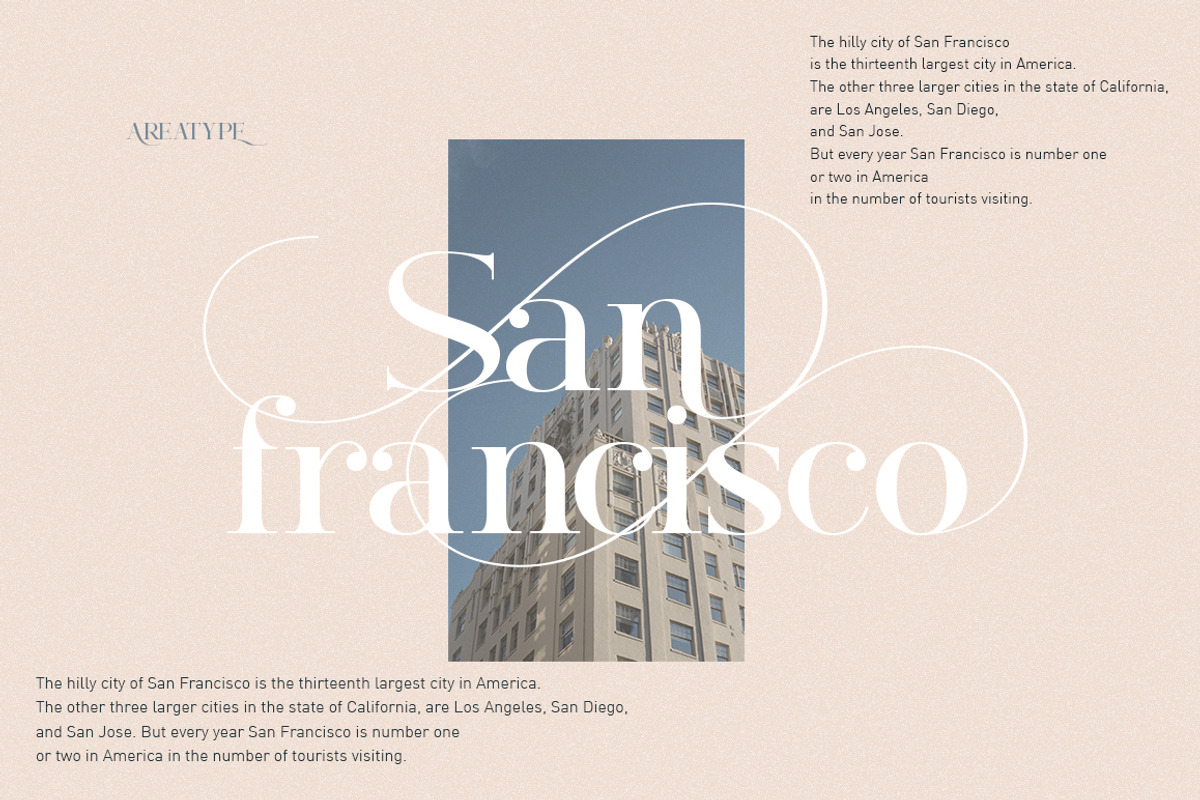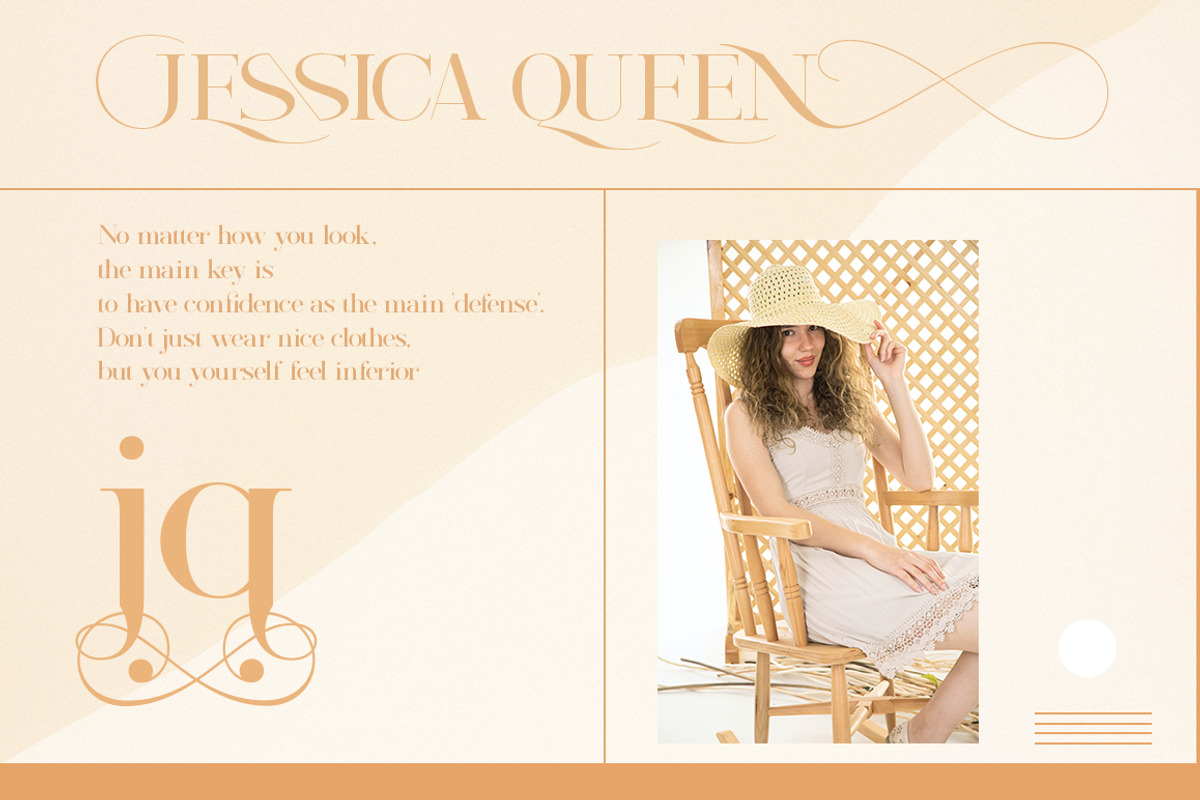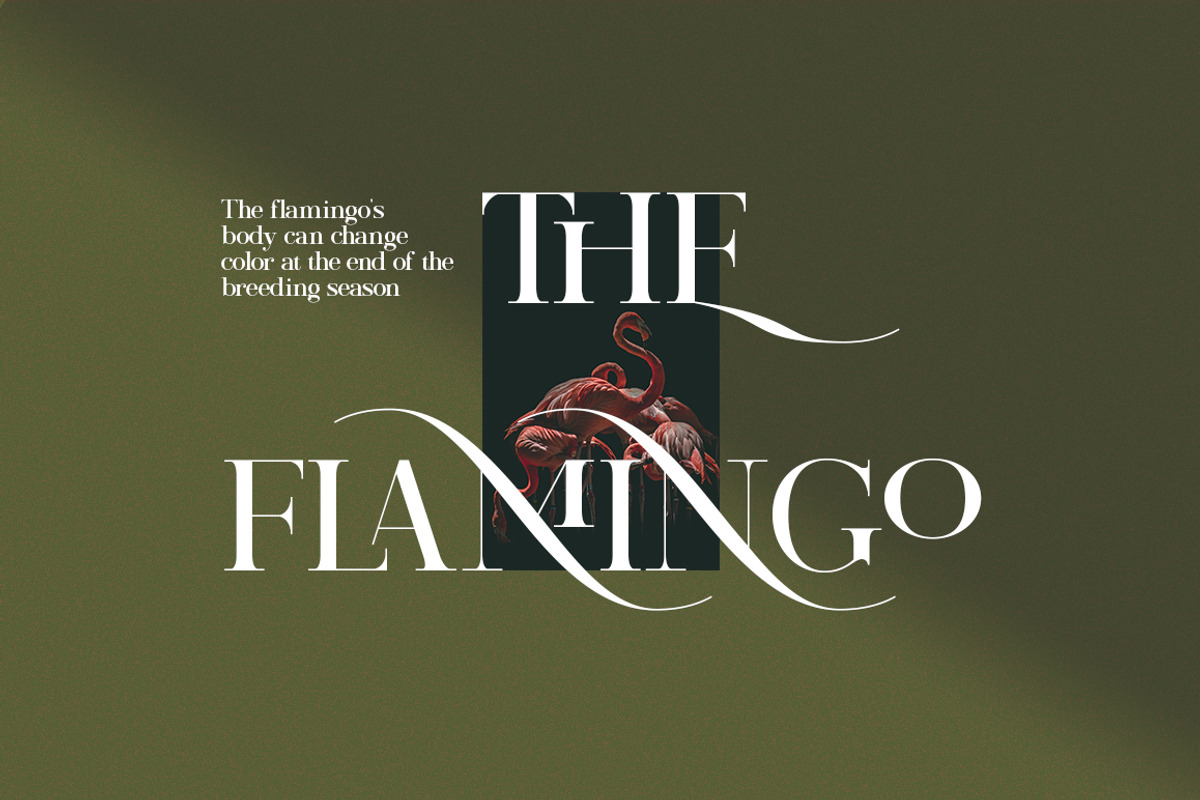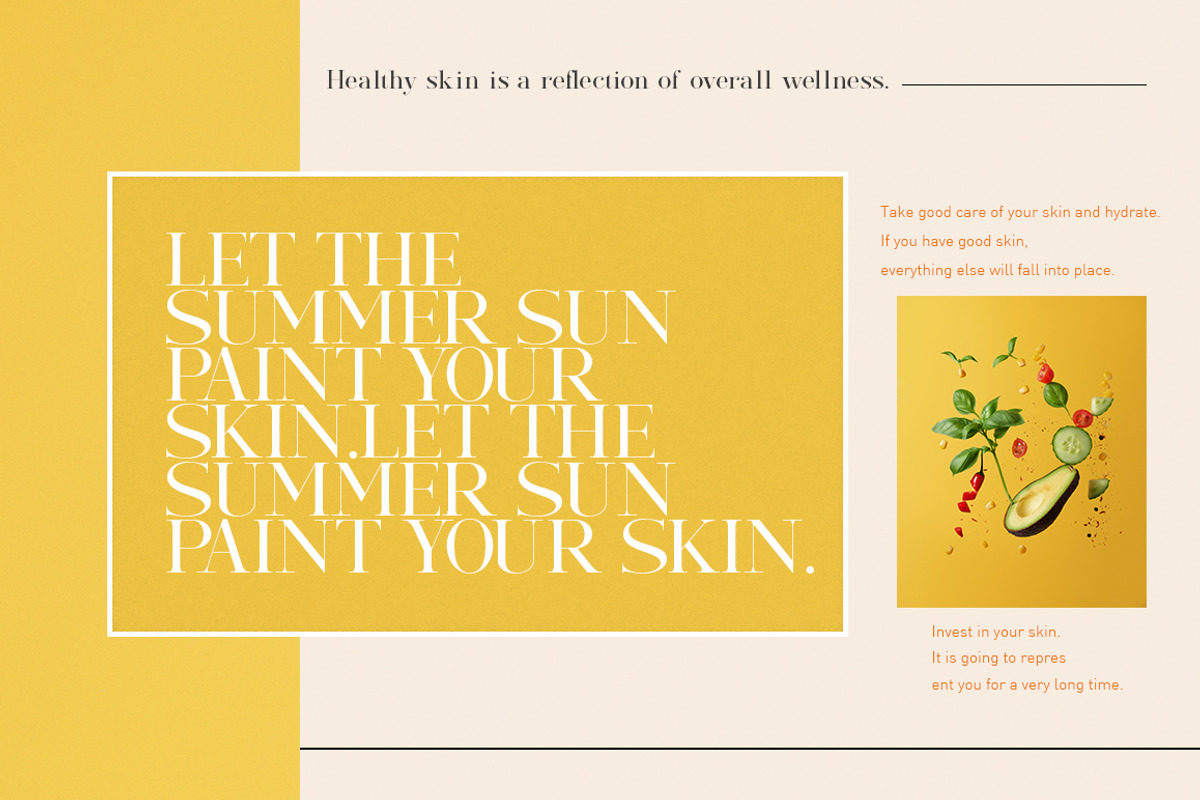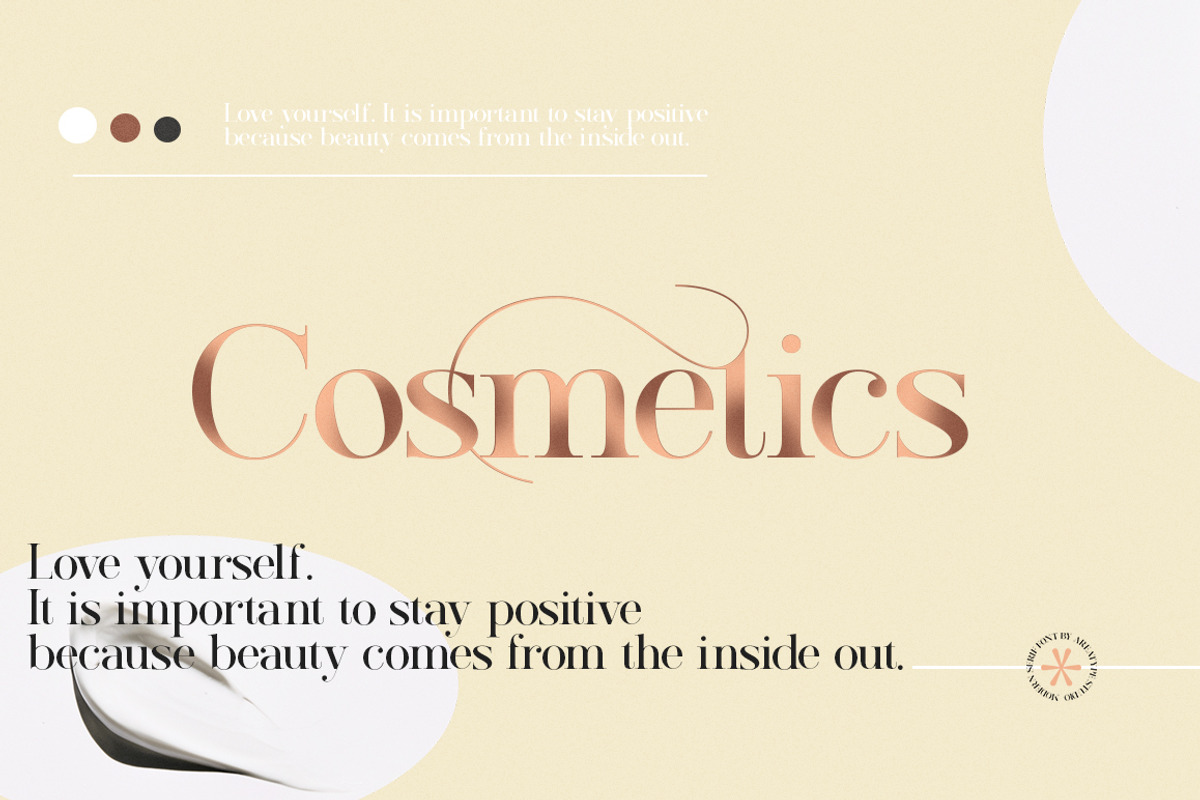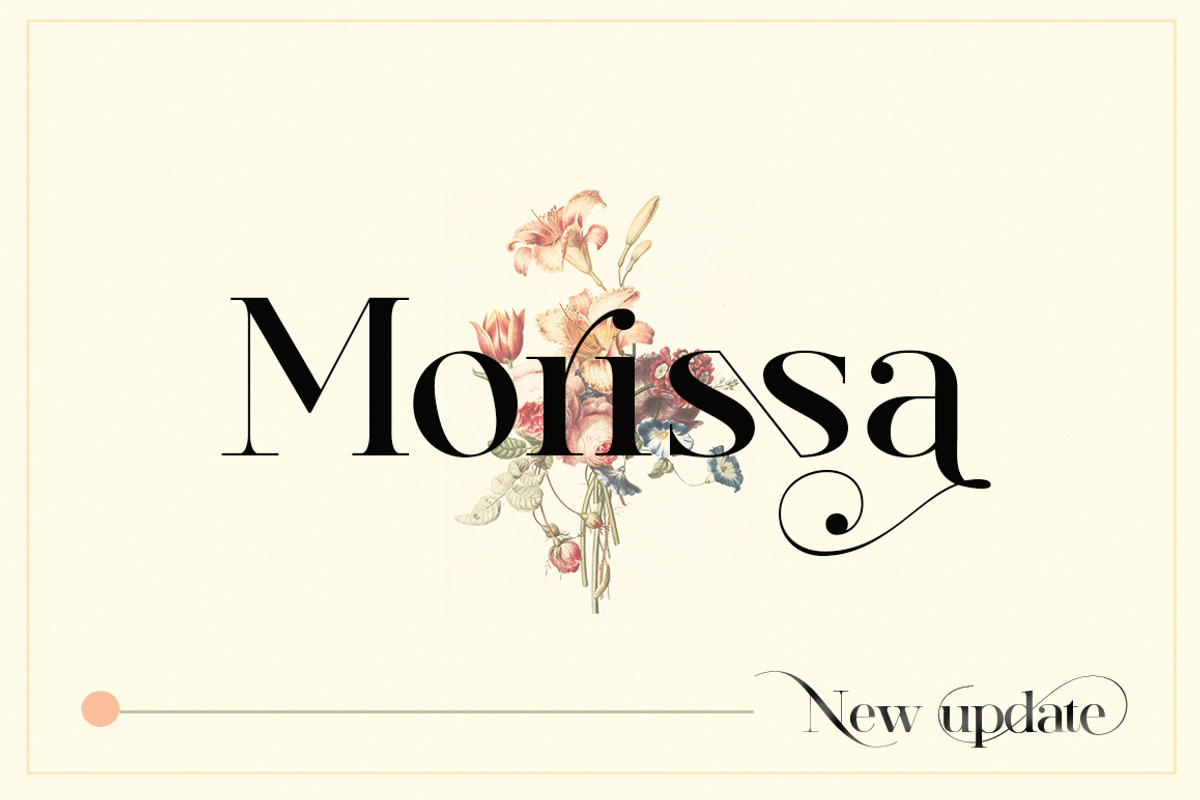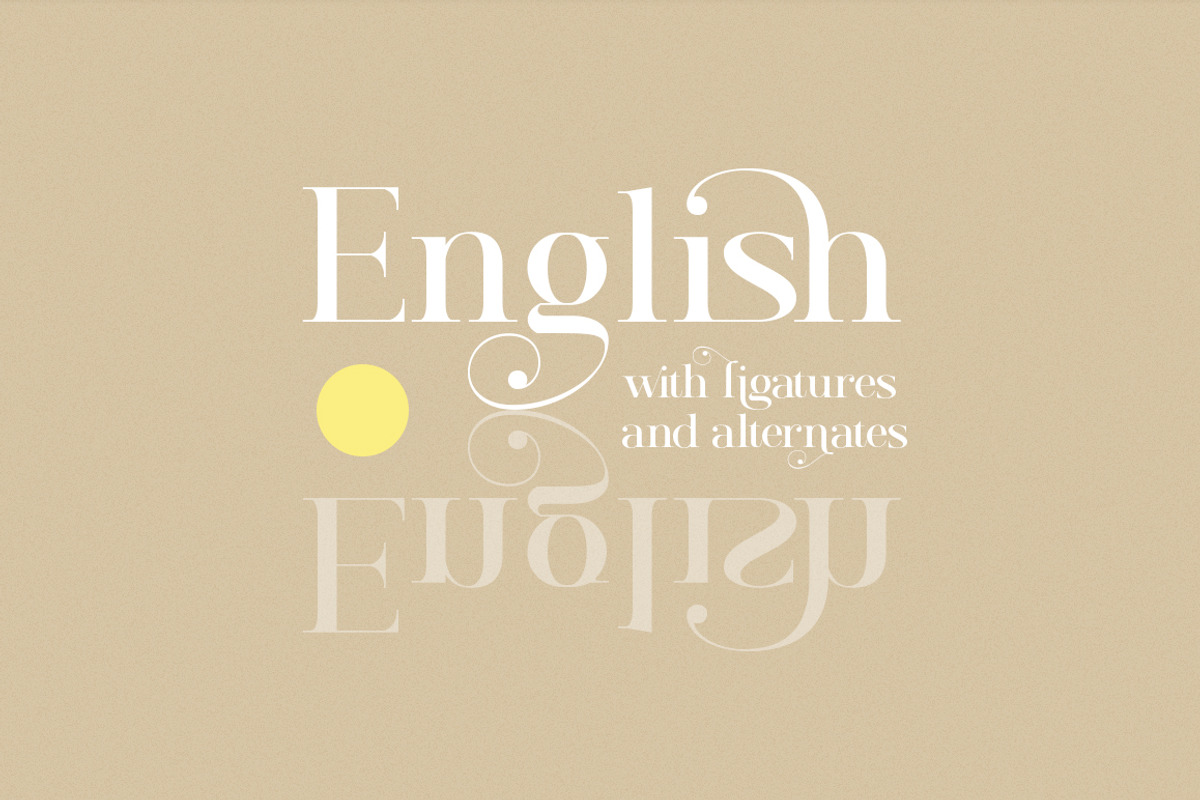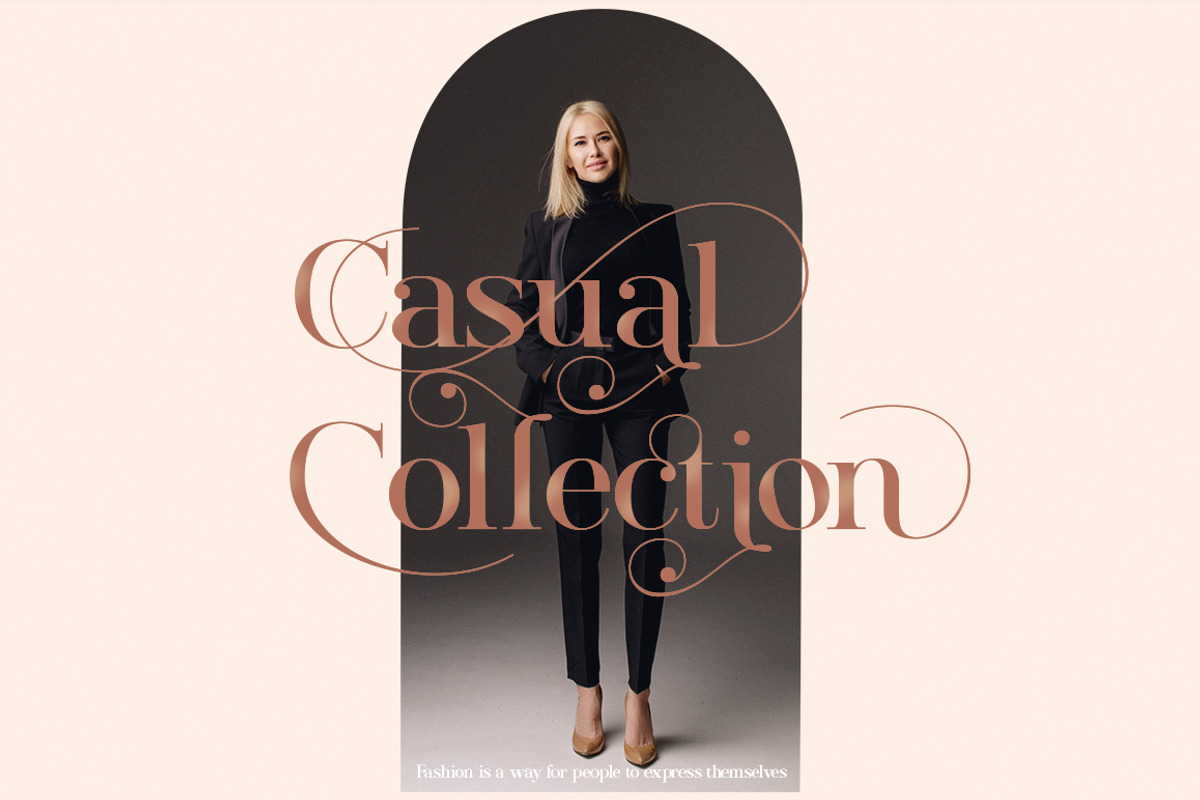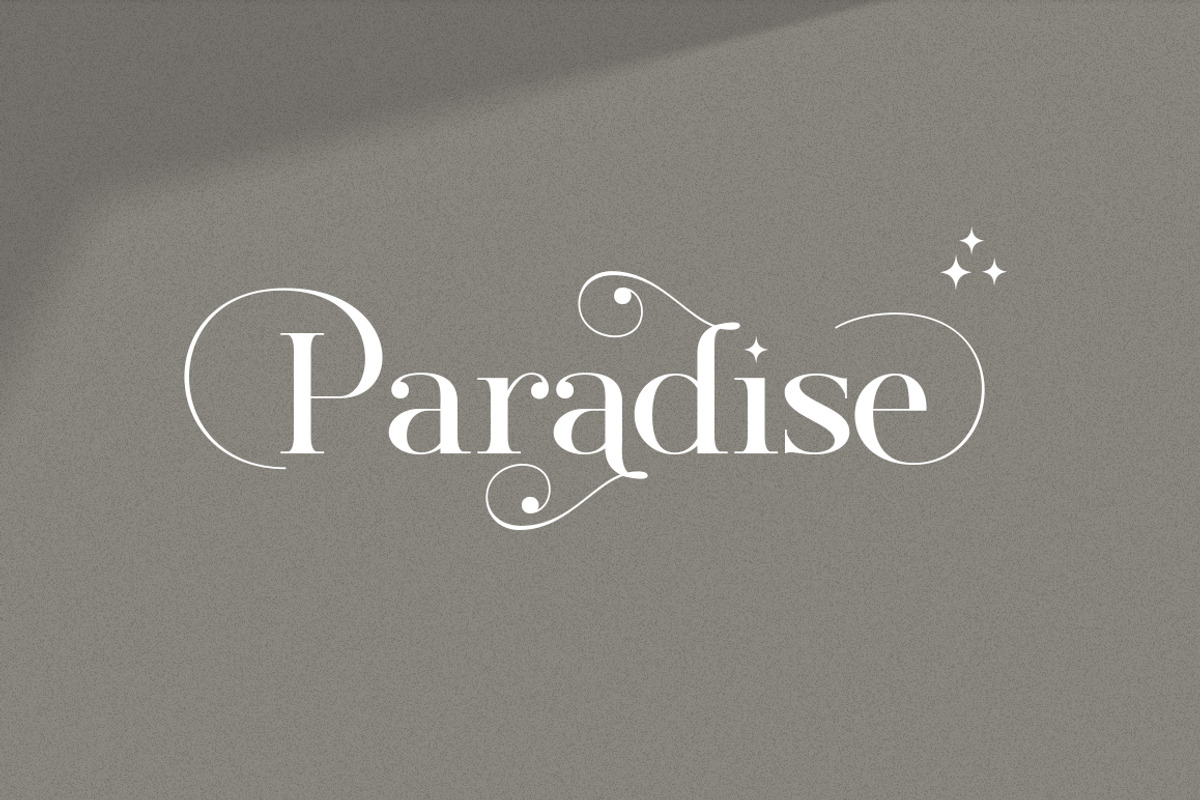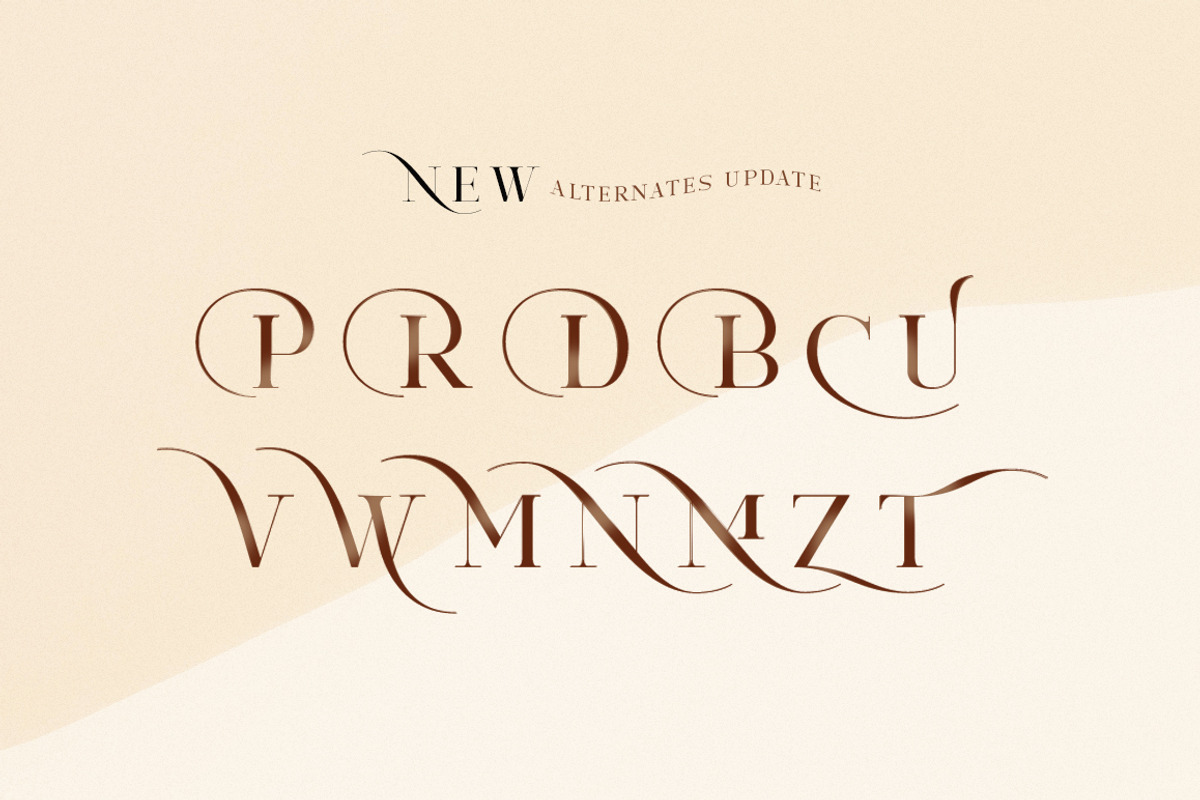
Morissa | Elegant serif
NEW UPDATE LIGATURES AND ALTERNATES
Morissa is a very versatile font. perfect for magazine images, to wedding invitations, to branding, poster design, and more.
- Stylistic Alternates & Ligatures